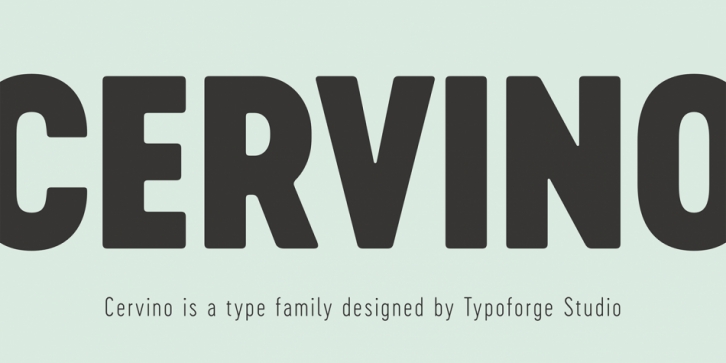
Cervino is a display sans and sans serif font family. This typeface has fifty-four styles and was published by Typoforge Studio.
Did you know that Cervino is the italian name for one of the highest and most beautiful mountain in Europe - Matterhorn? Just like this majestic peak, our new family is HUGE. Cervino family consist of three width masters, with nine weights in each of them, giving the total amount of 54 instances. It is full of different features - from the wide set of numerals and math signs, by small caps to subscript and superscript. It covers full latin and cyrylic script. Cervino would be a perfect choice for headlines, newspapers and for the longer texts as well.